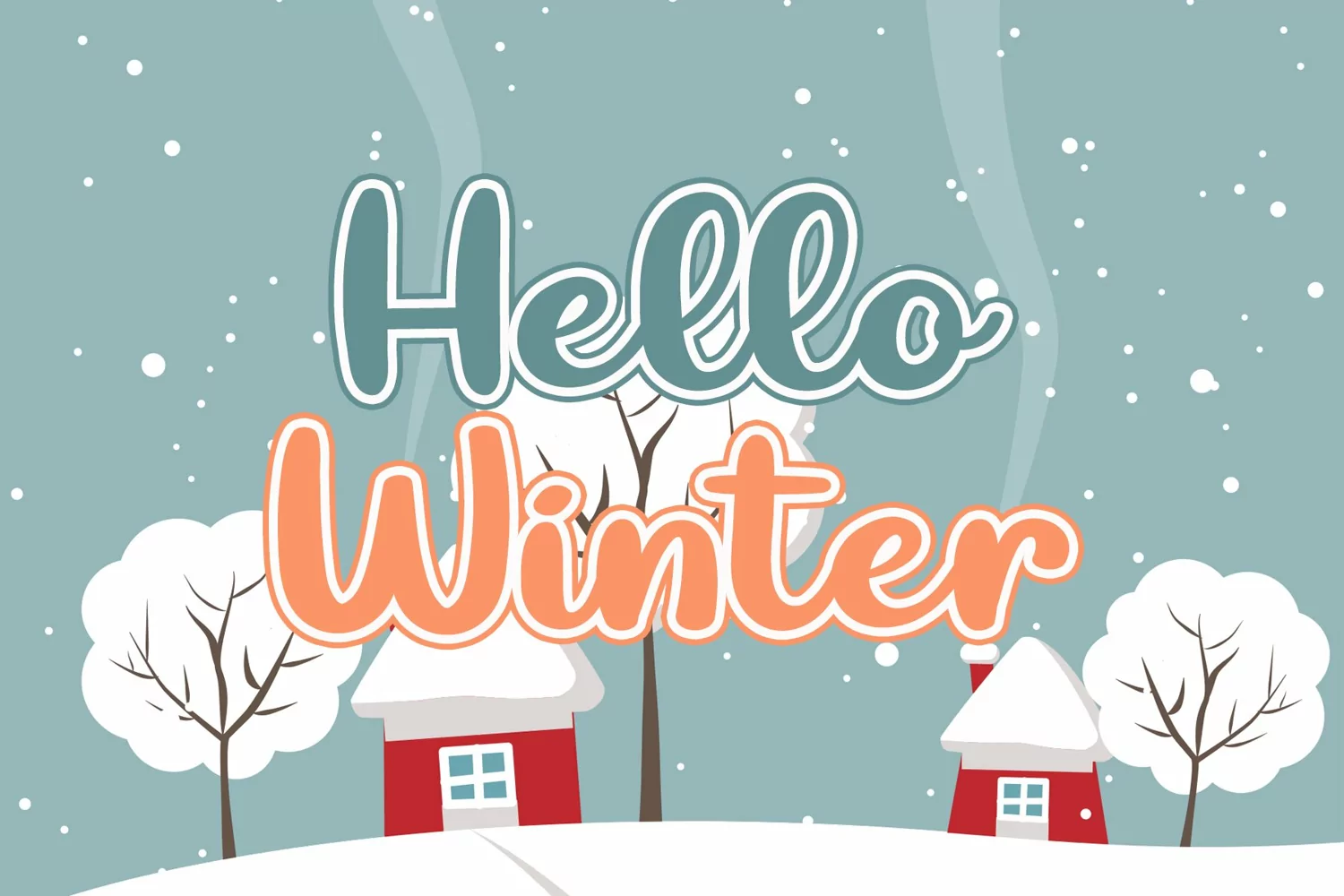
Smiling Rain is bold, fresh, and sweet handwritten font with natural flowing.
This font is versatile for many types of designs, from the playful project for children design, cheerful greeting cards, until the elegant design like signature, social media quotes, and many others.